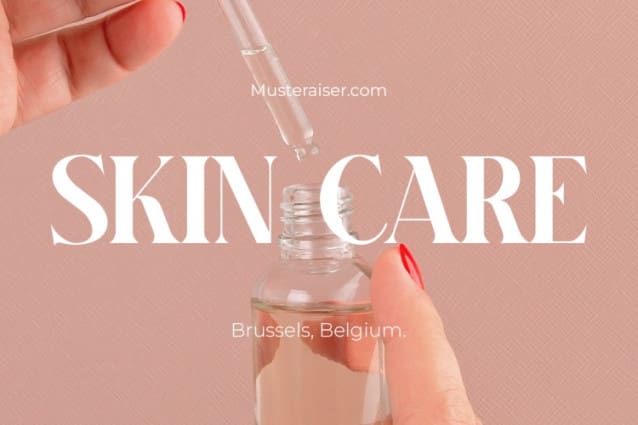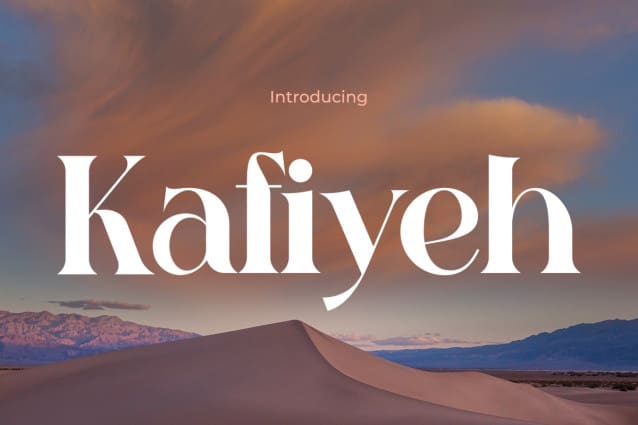
Kafiyeh Font
Kafiyeh Font, a stylish and fashionable typeface that captures the essence of contemporary elegance. Inspired by the world of high fashion and runway glamour, Kafiyeh Font brings sophistication and flair to any design project. Each letter is meticulously crafted with sleek lines and modern curves, reflecting the latest trends in the fashion industry. Whether you’re creating a chic logo for a luxury brand, designing a sleek magazine layout, or crafting eye-catching social media graphics, KafiyehFont will effortlessly elevate your designs to new heights of style and sophistication.
With its versatile appeal and fashionable aesthetic, Kafiyeh Font is the perfect choice for designers looking to make a statement in the world of fashion. Whether you’re working on a clothing line, accessories brand, or beauty campaign, KafiyehFont adds a touch of glamour and allure to your designs. Its bold yet elegant demeanor commands attention, while its contemporary vibe ensures that your creations stand out from the crowd. Embrace the chic elegance of Kafiyeh Font and let your designs shine with unparalleled style and sophistication.